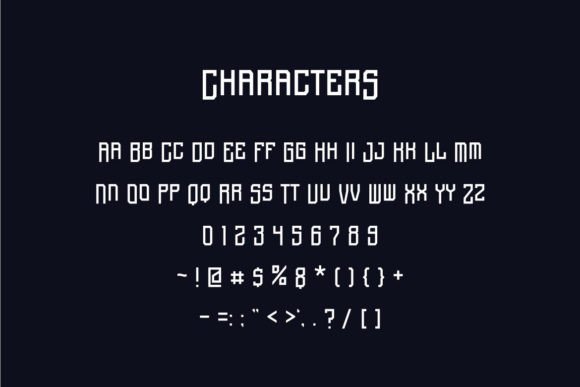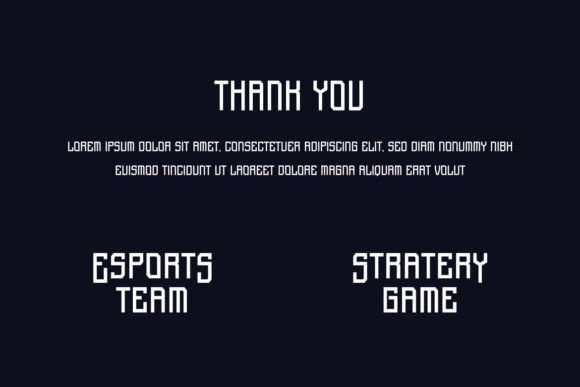
Introduction to Rockman Font
If you are looking for a modern display font, meet ROCKMAN.
Rockman is perfect for any works, such as sport and e-sport logo and content card, book title, headline of news, banner, flyer, stationery and many more .